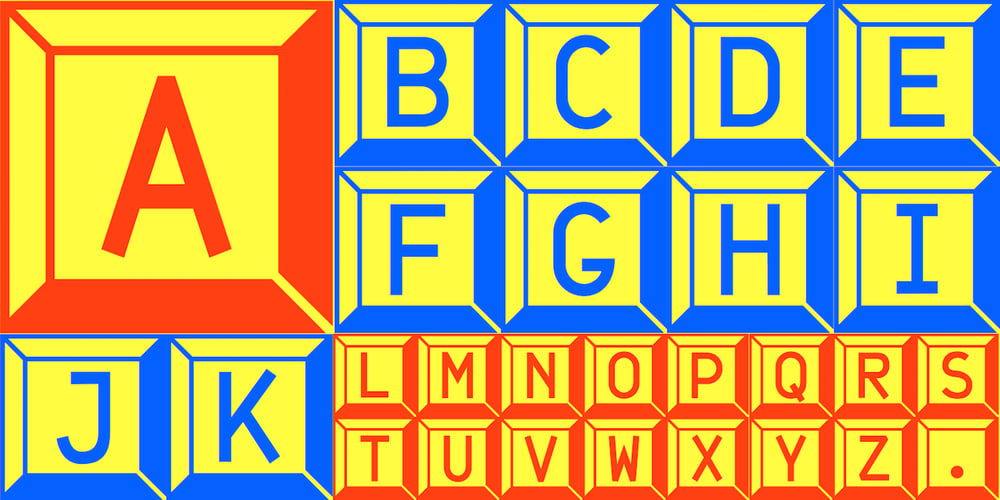
JetJaneButton Font Family was designed by Robert Schenk and published by Ingrimayne Type. JetJaneButton contains 1 styles and family package options. JetJaneButton has letters on a design that looks like a computer button. Its letters are from JetJane Mono, a sans-serif monospaced font. The typeface contains characters that can add color to letters. There are two ways to do this. One uses layers and the other a combination of characters, some with zero width. A file that explains the ways that this can be done is here.